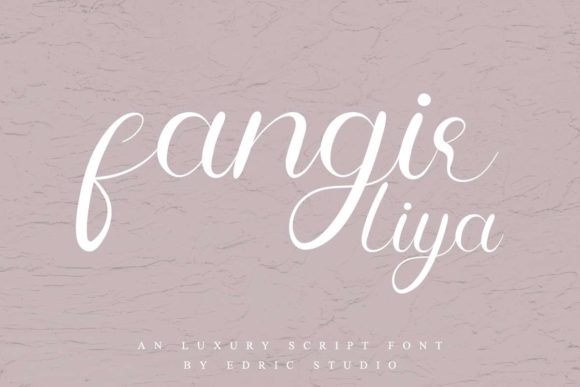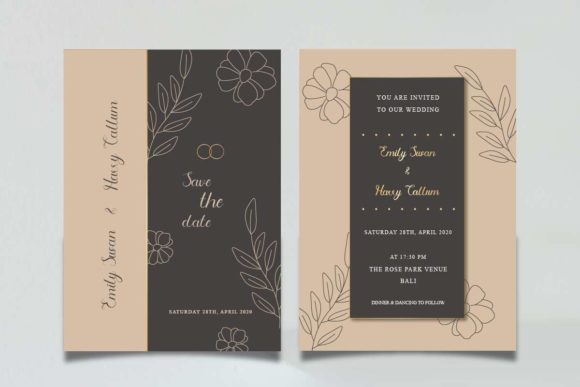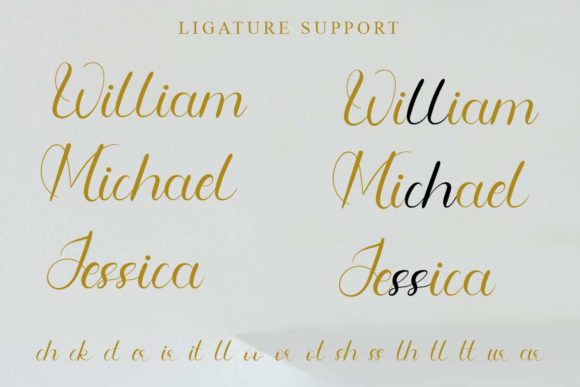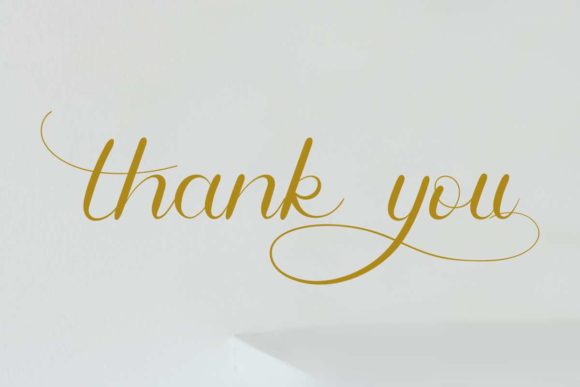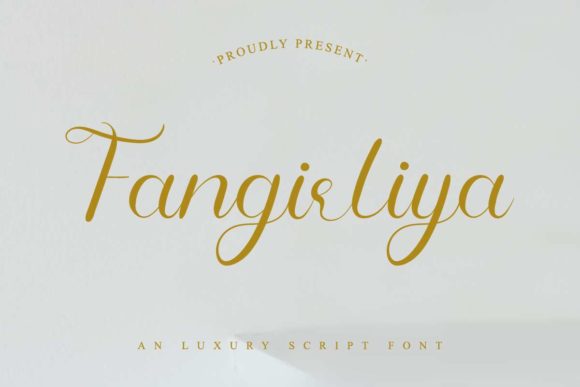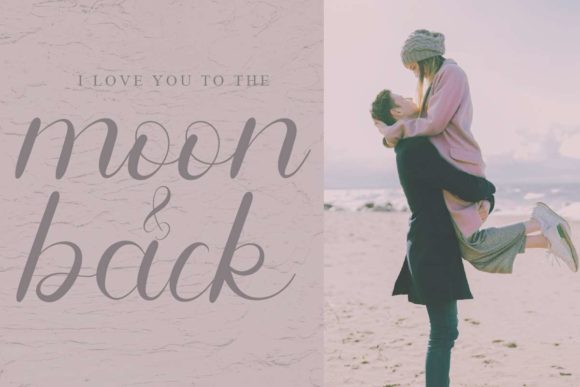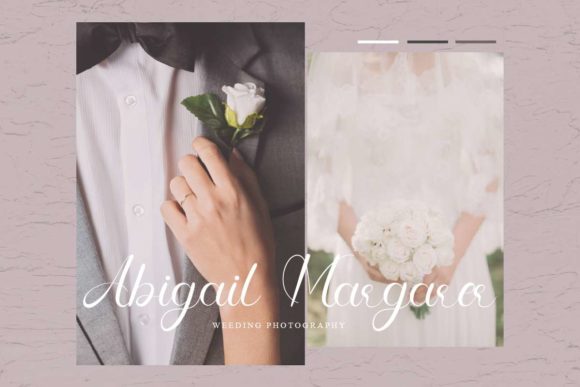
Fangirliya Font
About Fangirliya Font
Fangirliya is an exquisite calligraphy script typeface with a brush style. It features an incredibly classic style, while still keeping a friendly feel. Fangirliya is the perfect font for making original and outstanding designs.
This font is PUA encoded which means you can access all of the amazing glyphs and swashes with ease! It also features a wealth of special features including alternate glyphs and ligatures.